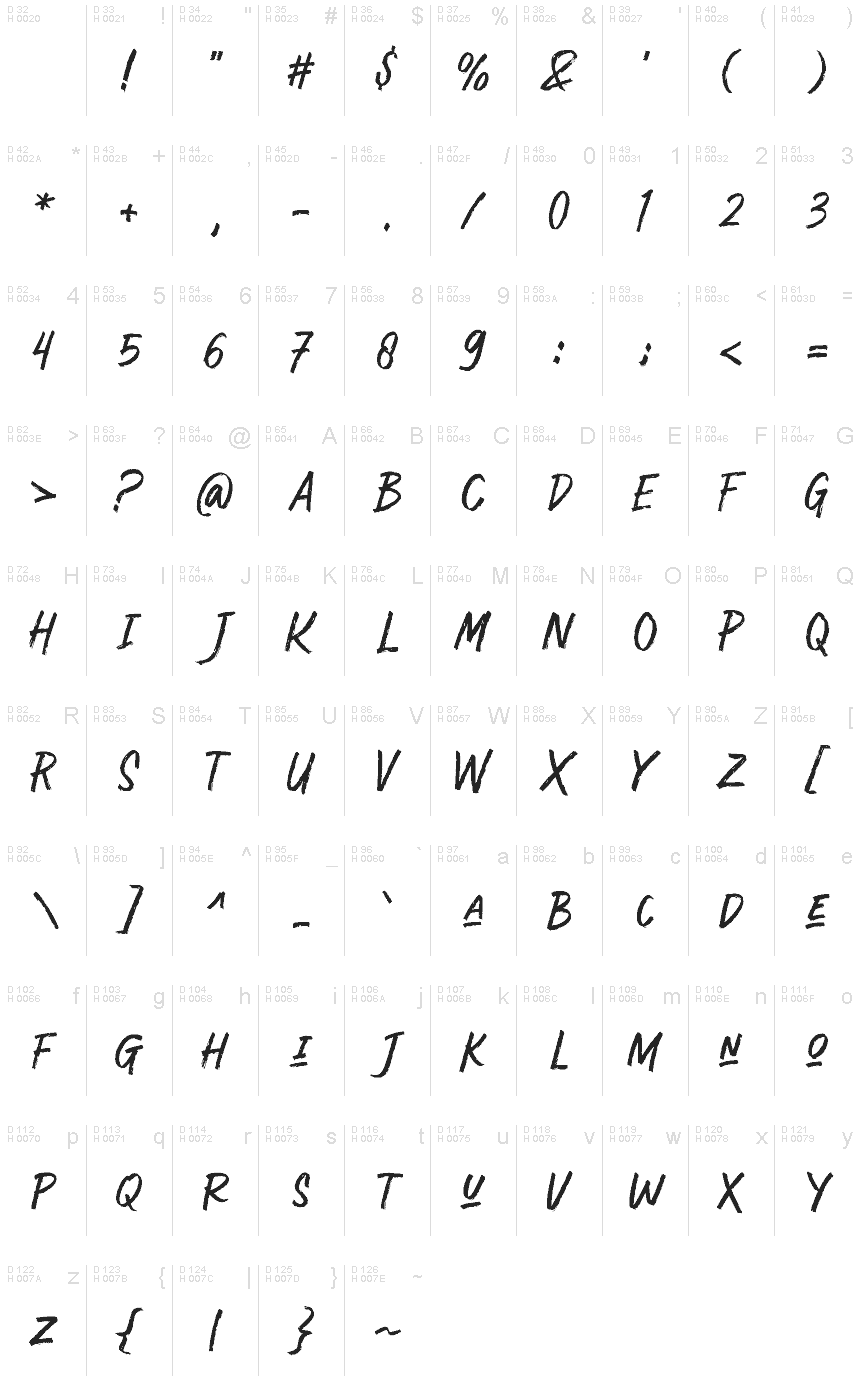
WildneryDemo
Wildnery font by Letterhend Studio is a brush font that reveals rugged, spontaneous, expressive, energetic, and urban vibes in its letters. The natural direct handwriting style has everything it takes to impress the reader. It’s meant to be more of a decorative font rather than a body text one as it instantaneously shows from its boldness and presence.
Use this free brush font for posters, flyers, headlines in magazines or newspapers, labels & packaging design, album covers, book covers of all kinds and many other applications. Enjoy it even further within your digital content on websites and social media platforms where the readers are highly reactive.